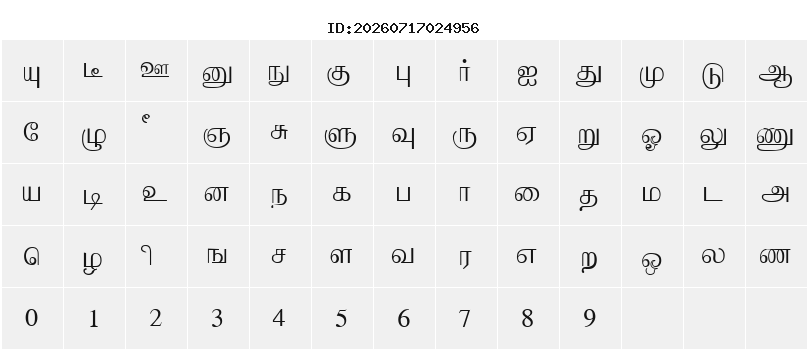
Aabohi Preview
• Font Name: Aabohi
• Full Font Name: AAbohi PC
About Aabohi.ttf
Aabohi.ttf is a modern, elegant sans-serif font designed for ultimate readability and visual harmony. Perfect for branding, headlines, web design, and print materials.